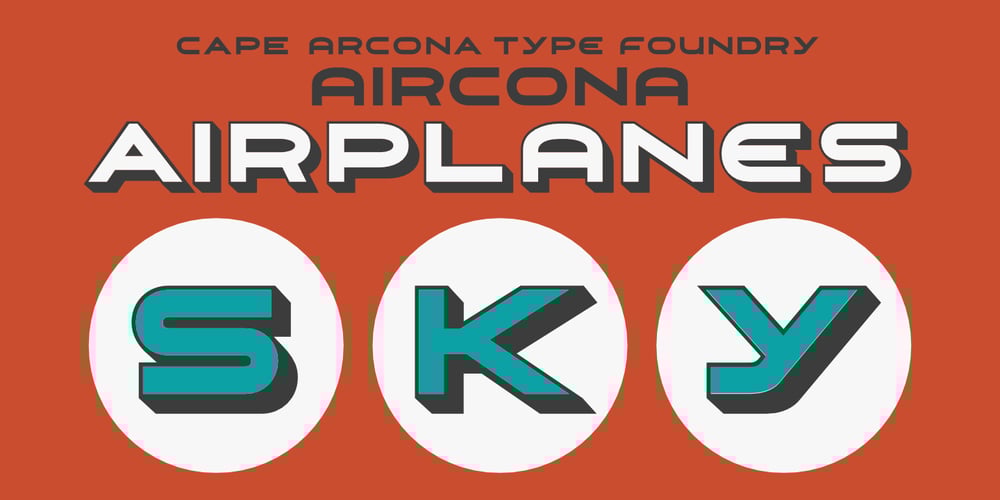
CA Aircona
CA Aircona font
CA Aircona Font Family was designed by Stefan Claudius and published by Cape Arcona Type Foundry. CA Aircona contains 3 styles and family package options. The aim was to make a font that looks like the ones on airplanes. And Cape Arcona Type Foundry needed an Airline anyway. For more options in typesetting, some upper and lower cases differ. For the best effect of the 3D version, write the desired word with ‘fill’, duplicate it and change its style to ‘shadow’.